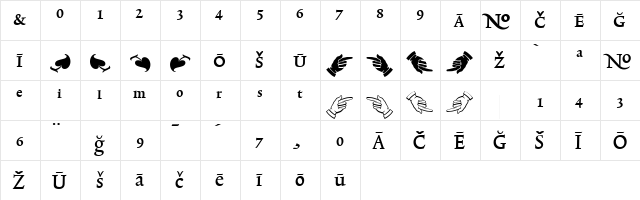
TriniteNo2 Medium
Design Context for TriniteNo2 Typeface
TriniteNo2 is a composed and adaptable typeface that performs quietly and consistently across a wide range of design contexts.